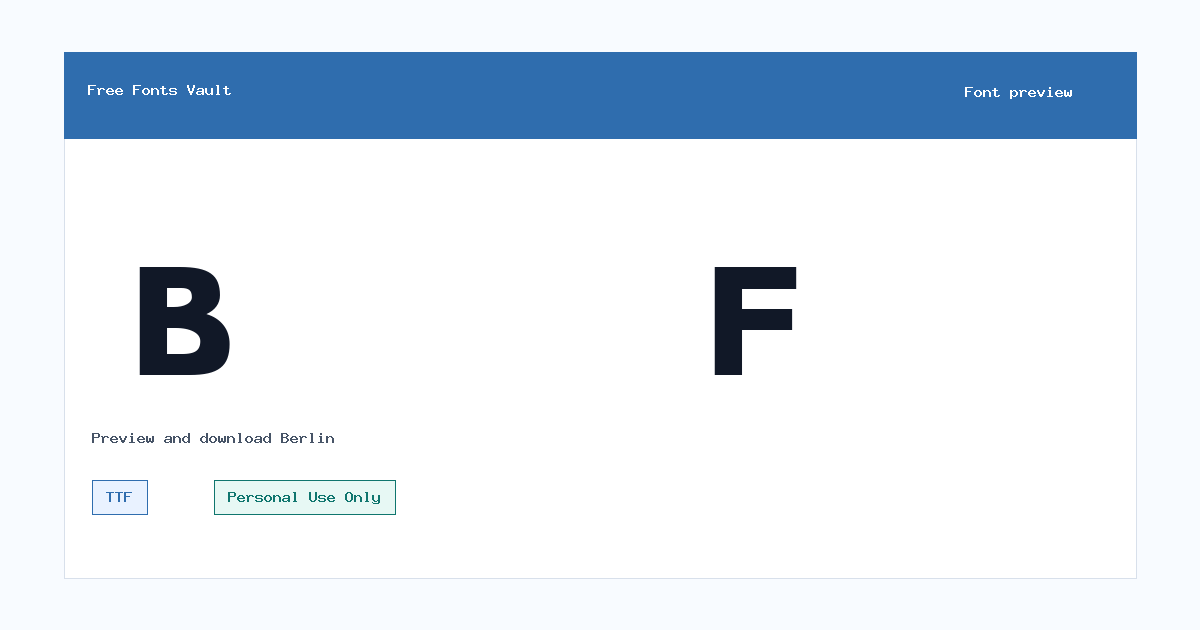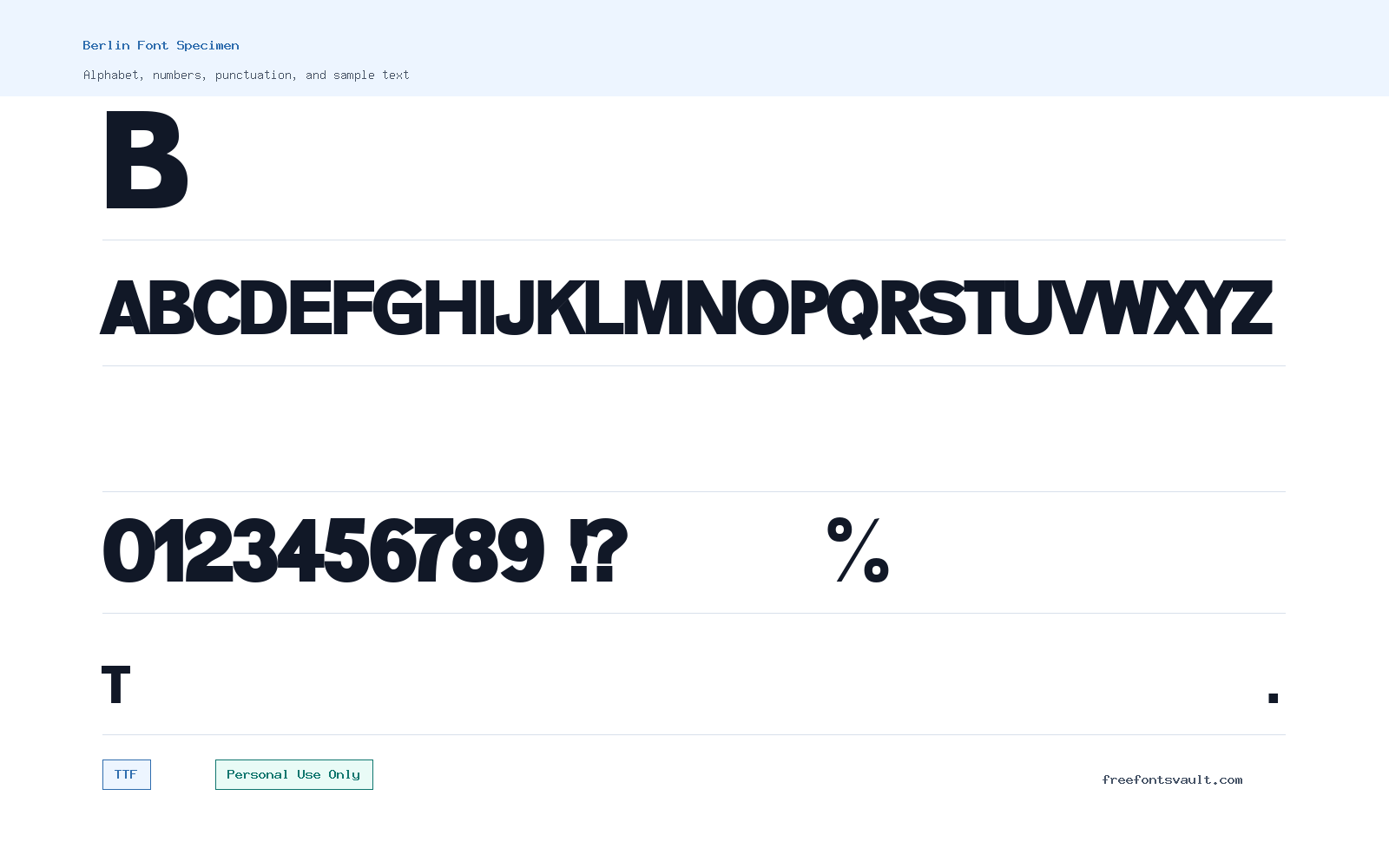
Berlin
Berlin font.
Berlin is a simple sans serif font with a clean regular style, suitable for testing in titles, short labels, and display text where you want a straightforward modern look.
About Berlin Font
Berlin comes as a regular-weight TTF font, making it easy to install and try in common design apps, word processors, and browser-based preview tools. Its sans serif structure gives it a neat, uncluttered appearance, so the best way to judge it is by typing your own words in the preview box and checking how the spacing, capitals, and punctuation behave at different sizes. Because only the regular style is included, it works best when the design does not need a full family with bold, italic, or multiple weights.
Use Berlin for short pieces of text first: headings, simple posters, social graphics, name labels, small branding drafts, menu titles, or quick mockups. Keep an eye on readability if you plan to use it in long paragraphs, because a single regular style can feel limited when a layout needs hierarchy. For cleaner results, pair it with a neutral body font that has more weights, then use Berlin as the accent face for the main title or a short callout. Before using it in any finished work, check the license carefully, as this font is marked for personal use only.
- Best suited to short display text, previews, drafts, and personal design experiments
- Personal posters, social media graphics, and title mockups
- Testing clean sans serif lettering in short names, labels, and headings